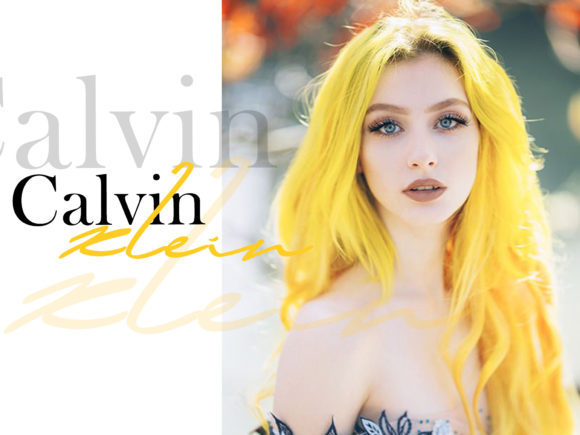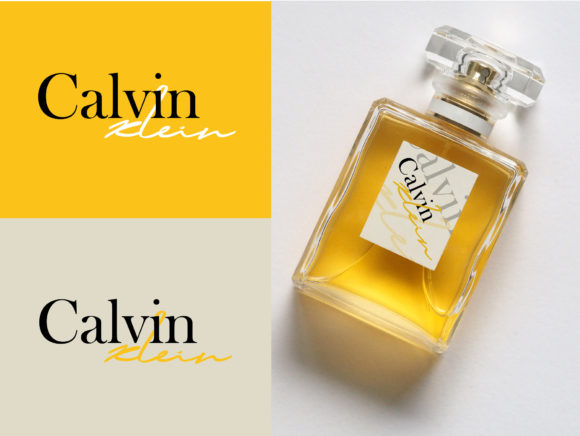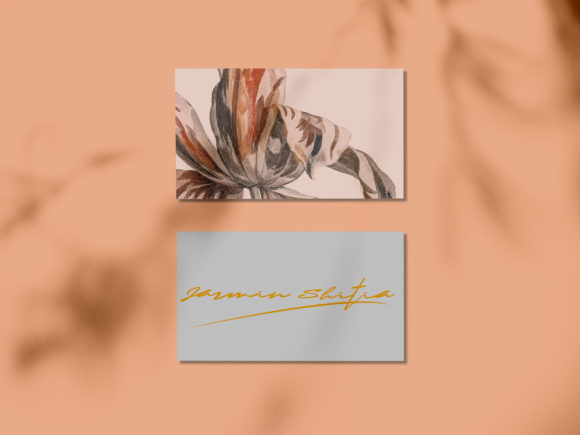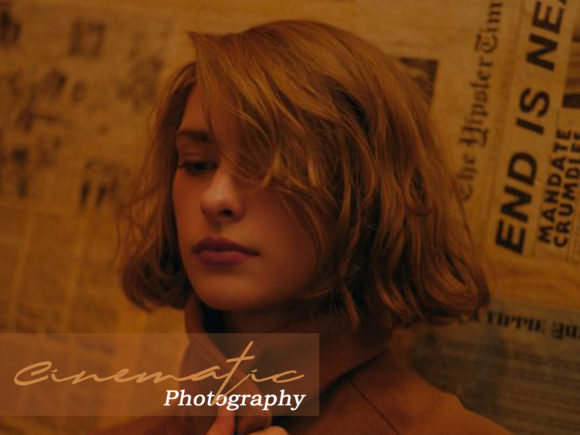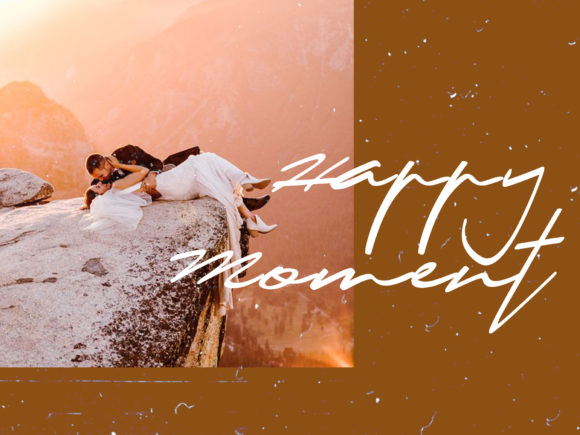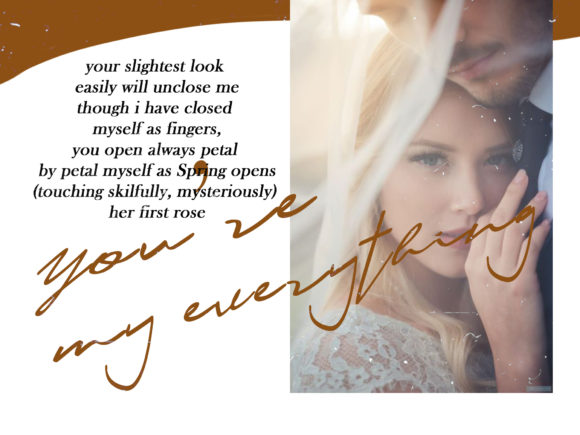
Introduction to Lamender Font
Lamender is a thin and modern handwritten font that will effortlessly add a touch of sophistication to any design project.
Lamender is a thin and modern handwritten font that will effortlessly add a touch of sophistication to any design project!
Key Features of Lamender Font
Why Choose Lamender Font?
Lamender Font offers exceptional quality and versatility, making it a valuable addition to your design toolkit. Whether you’re creating for personal projects or commercial use, Lamender Font delivers professional results.